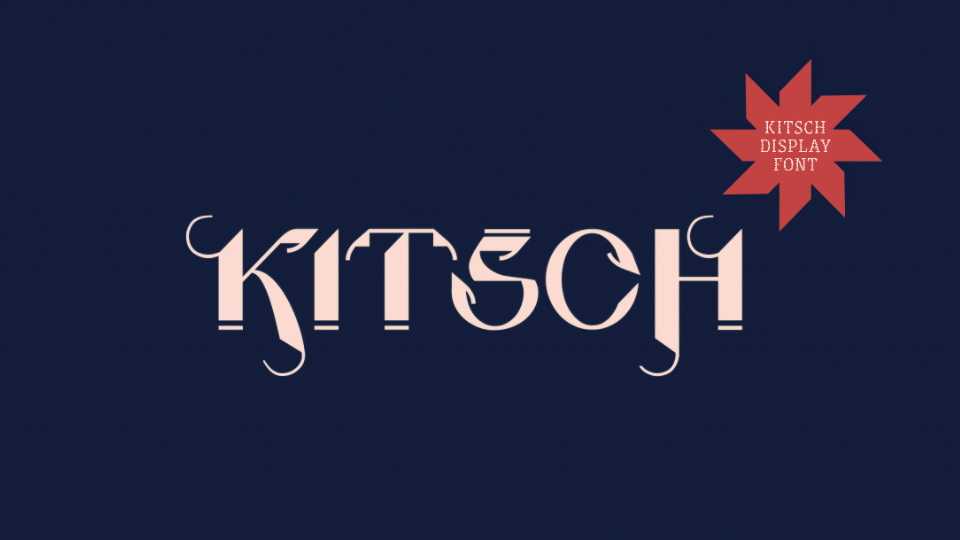
Download Kitsch font, a unique display typeface with a contemporary look and strong personality. Kitsch font is perfect for branding, editorial use, posters, album artworks and typographic compositions.
Designer: Erik Pál